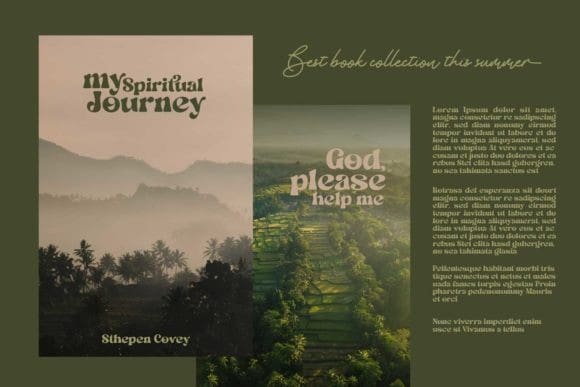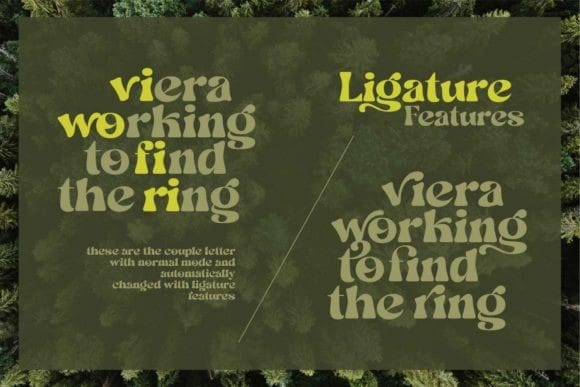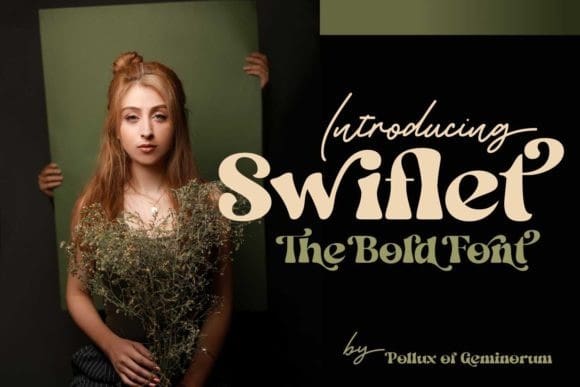
Swiflet Font
Swiflet Font is an authentic and unique display font that will impress you with its bold character.
It works perfectly on the headline or title of your website and magazine, logo for coffee shop, cafe, vintage theme, and many other creative ideas.